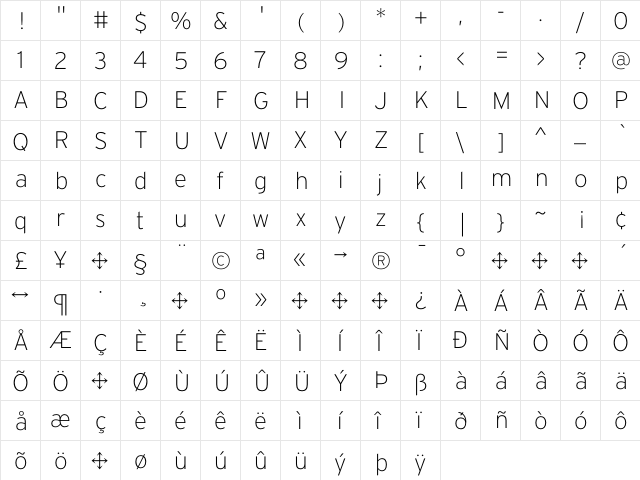
Interstate ExtraLight
Design Context for Interstate Typeface
Interstate offers clean, dependable letterforms without strong stylistic allegiance, making it a practical choice for designers who need flexibility. Its slender proportions lend an understated elegance to any composition.
Pro Tip: Use Interstate in both headline and body roles to test its range before committing to a single application.